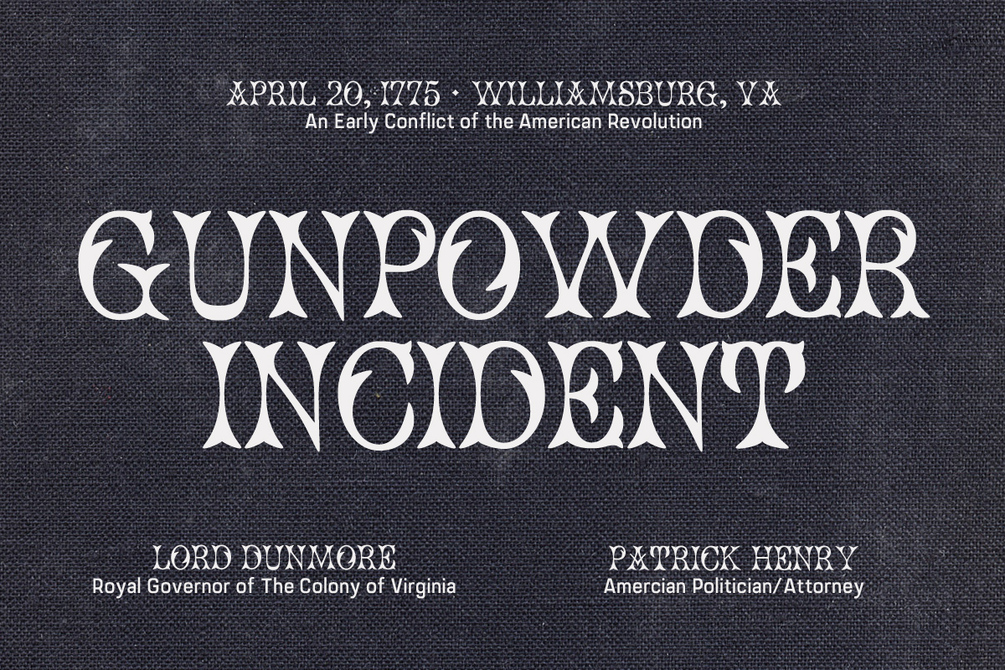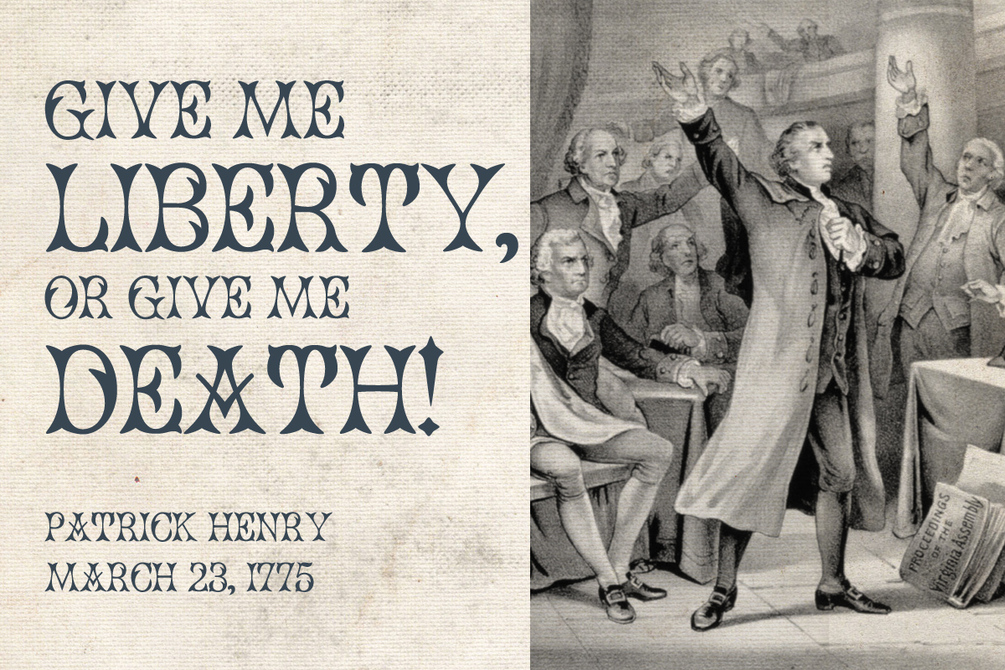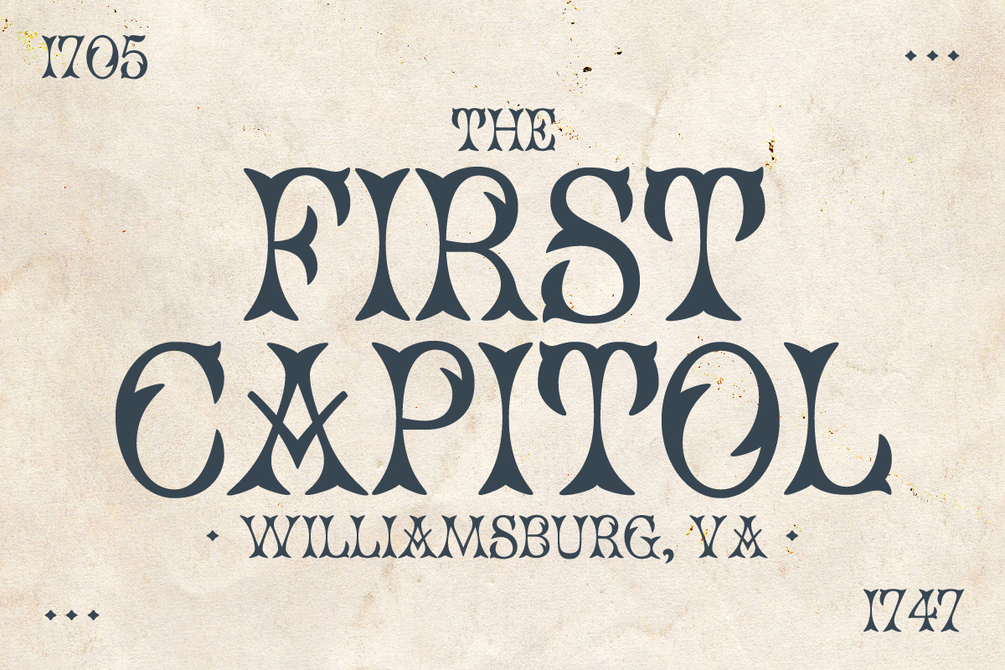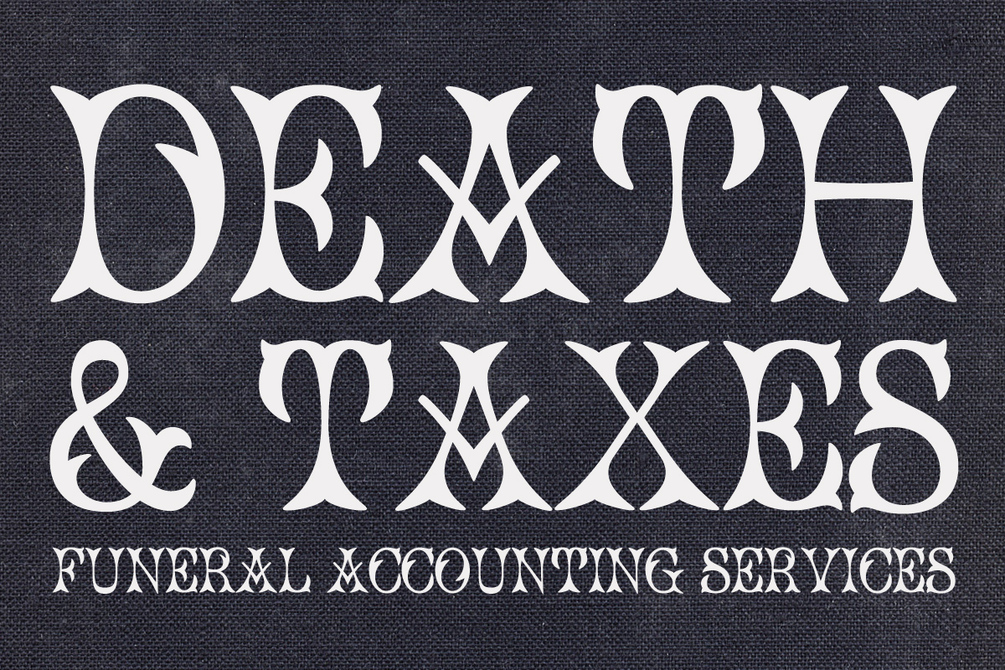
Morgan No.7 Typeface
Morgan No.7 is an ornamented display face with a rich history from The Morgan Press. When subtle just won't do, Morgan No.7 is there to bring pomp and circumstance to any headline, drop cap, or short text needs.
Morgan No.7 has a little language support with a few diacritics. I'd take a closer look at the character set if English is not your first language.